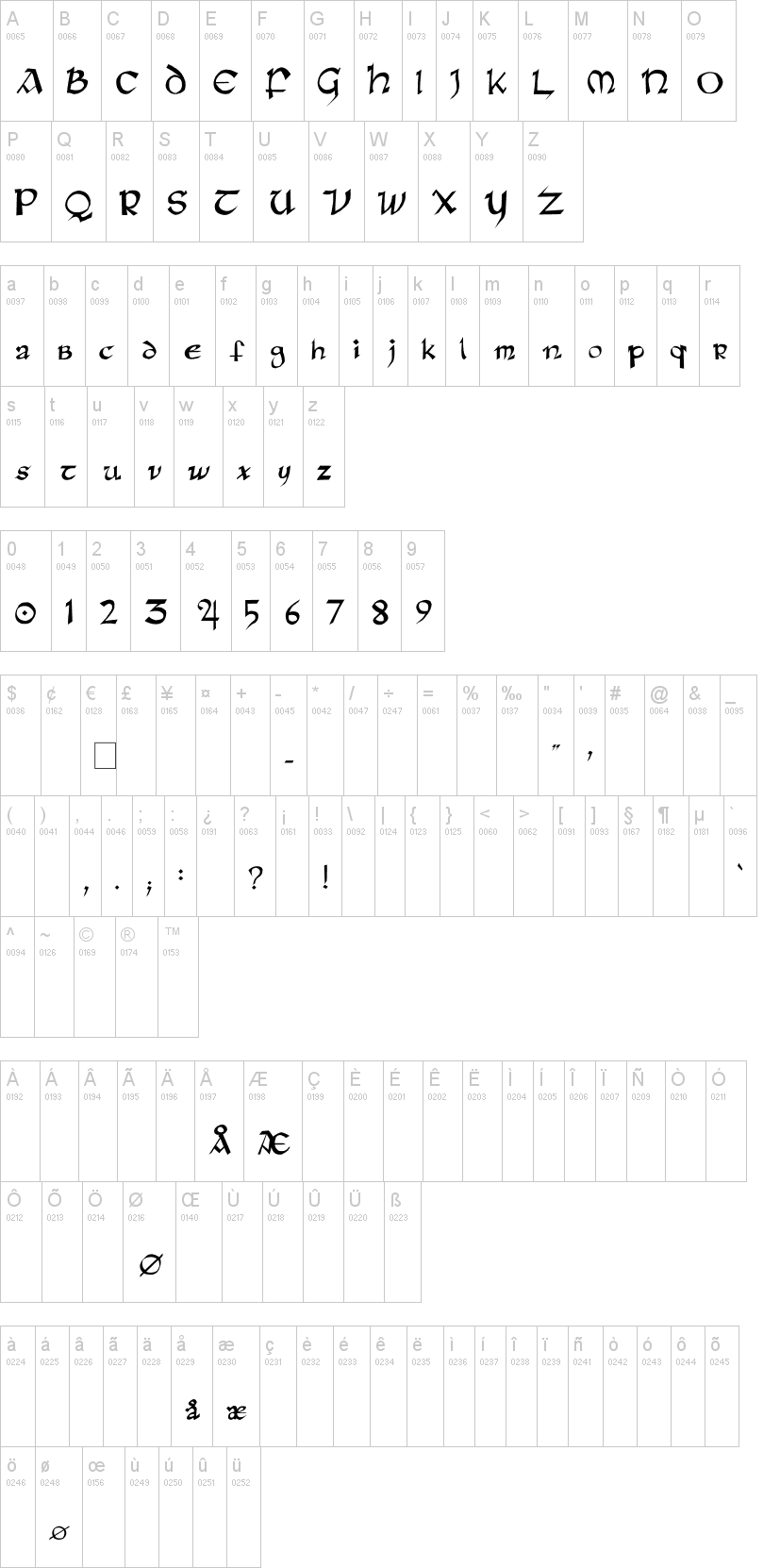
Шрифт Rane Insular
Rane Insular is my very first font, based on my personal handwriting which, in turn, is based on early Medieval Irish insular calligraphy.